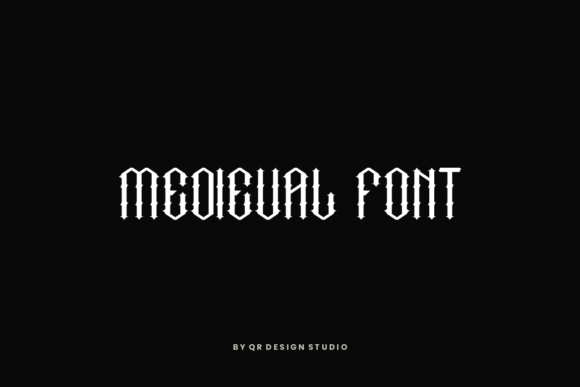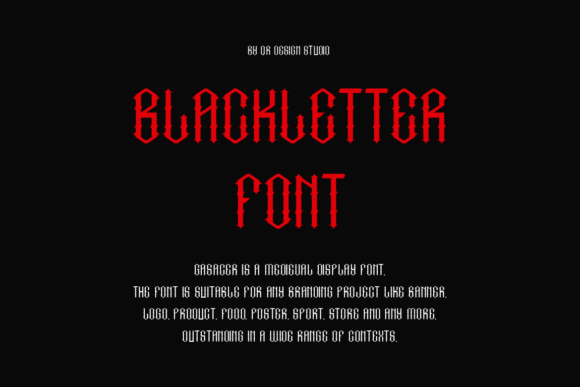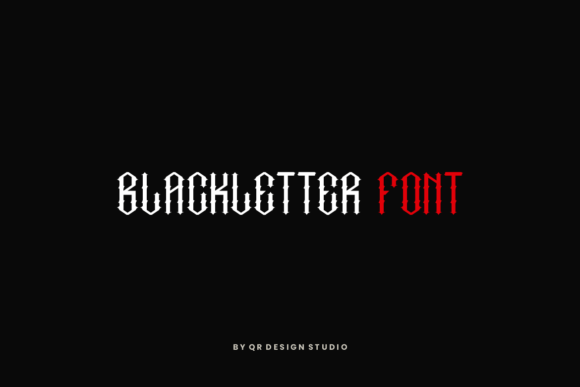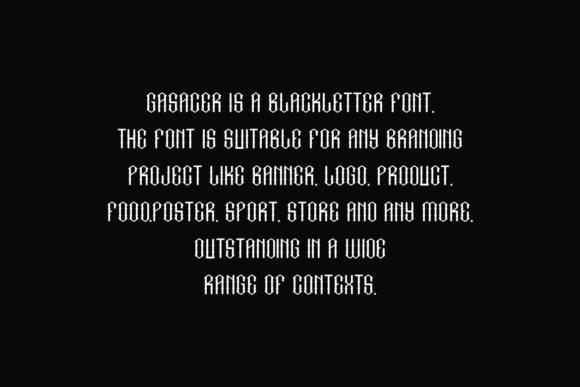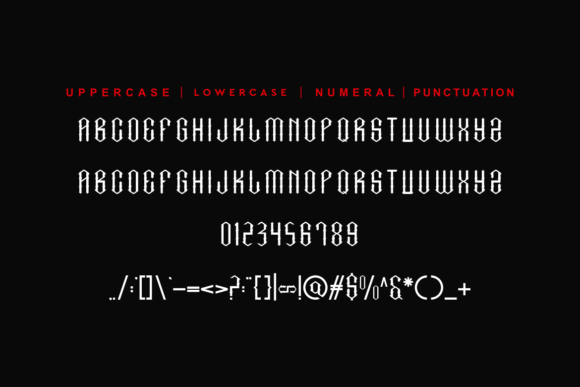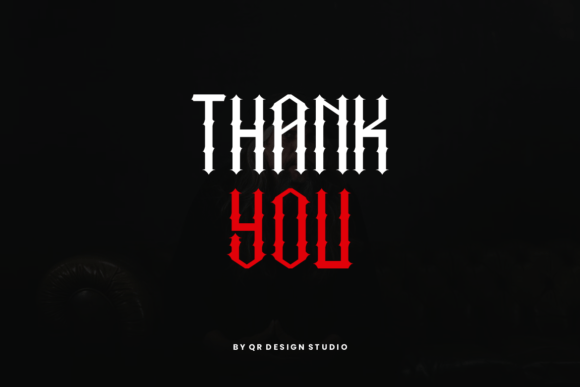
The Power of Gasacer Font: Elevate Your Designs with a Bold Blackletter
I’ll never forget the design project that made me fall in love with the Gasacer font. I was working on a branding campaign for a craft beer company, and I needed a font that would convey a sense of boldness and confidence. After hours of searching through font libraries, I stumbled upon Gasacer, and it was like a lightbulb went off. The font’s assertive blackletter style instantly captured the essence of the brand, and I knew I had found the perfect fit.
So, what makes Gasacer font so special? Here are a few things I love:
- ✨ Bold and assertive: Gasacer font makes a statement, and that’s exactly what I need for projects that require a confident tone.
- ✅ Versatile: Whether I’m working on a logo, a poster, or a packaging design, Gasacer font adapts seamlessly to different contexts.
- 💯 Unique character: The font’s blackletter style gives it a distinctive personality that sets it apart from more traditional fonts.
Of course, no font is perfect, and Gasacer has a few quirks to keep in mind:
- 🤔 Legibility at small sizes: While Gasacer font looks stunning at larger sizes, it can become a bit tricky to read at smaller sizes (e.g., body text). Use it judiciously!
- ⚠️ Limited suitability for formal projects: The font’s bold, assertive style may not be the best fit for more formal or traditional projects (e.g., corporate reports, academic papers).
Designer Inspiration: The Story Behind Gasacer Font
Gasacer font was designed by a renowned type designer who sought to create a bold, assertive blackletter font that would make a statement. Inspired by traditional blackletter scripts, the designer aimed to craft a font that would be both elegant and edgy. The result is a font that exudes confidence and sophistication, perfect for designers looking to elevate their creations.